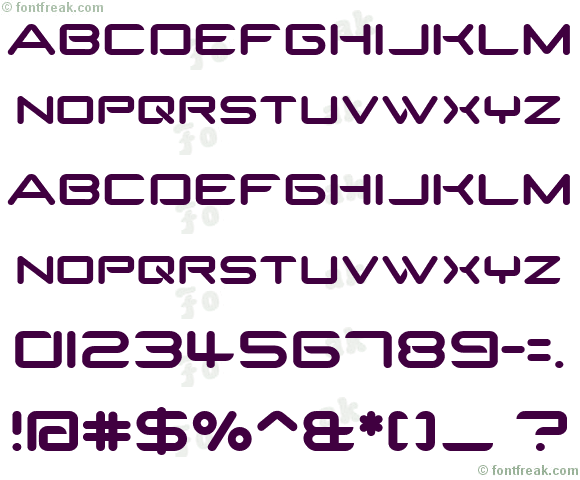
SparTakus
About SparTakus
SparTakus is a striking display font designed by Peter Wiegel, categorized as a sans-serif typeface. This font is characterized by its bold, geometric shapes and clean lines, which create a modern yet timeless aesthetic. The stroke weight is consistent, providing a sturdy presence that commands attention while maintaining readability. The letterforms feature a slight contrast, which enhances their visual appeal, and the spacing is well-balanced, allowing for seamless integration into various design projects. SparTakus also incorporates unique decorative elements that lend it a distinctive personality without overwhelming the overall simplicity.
This versatile font is ideal for a range of applications. It can elevate wedding invitations with its contemporary flair, making them feel both elegant and modern. For graphic designers working on movie posters, SparTakus provides a strong visual impact that captures the essence of the film. Restaurant menus will benefit from its clarity, ensuring that the text is easily readable while adding a touch of sophistication. Additionally, SparTakus is perfect for branding projects where a memorable logo is essential, helping small business owners establish a strong visual identity. Content creators will find SparTakus an excellent choice for social media graphics, giving their posts a polished look that stands out in crowded feeds.
Author Peter Wiegel